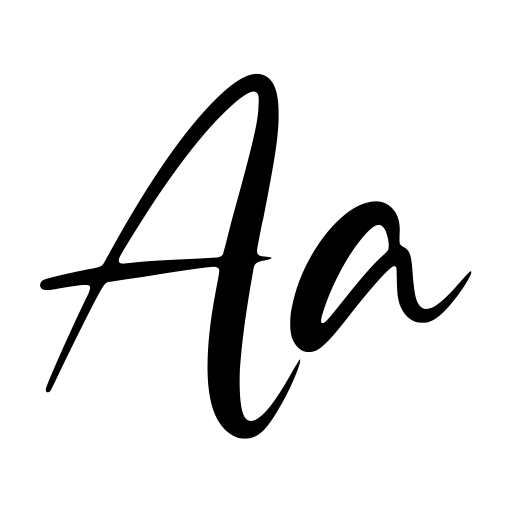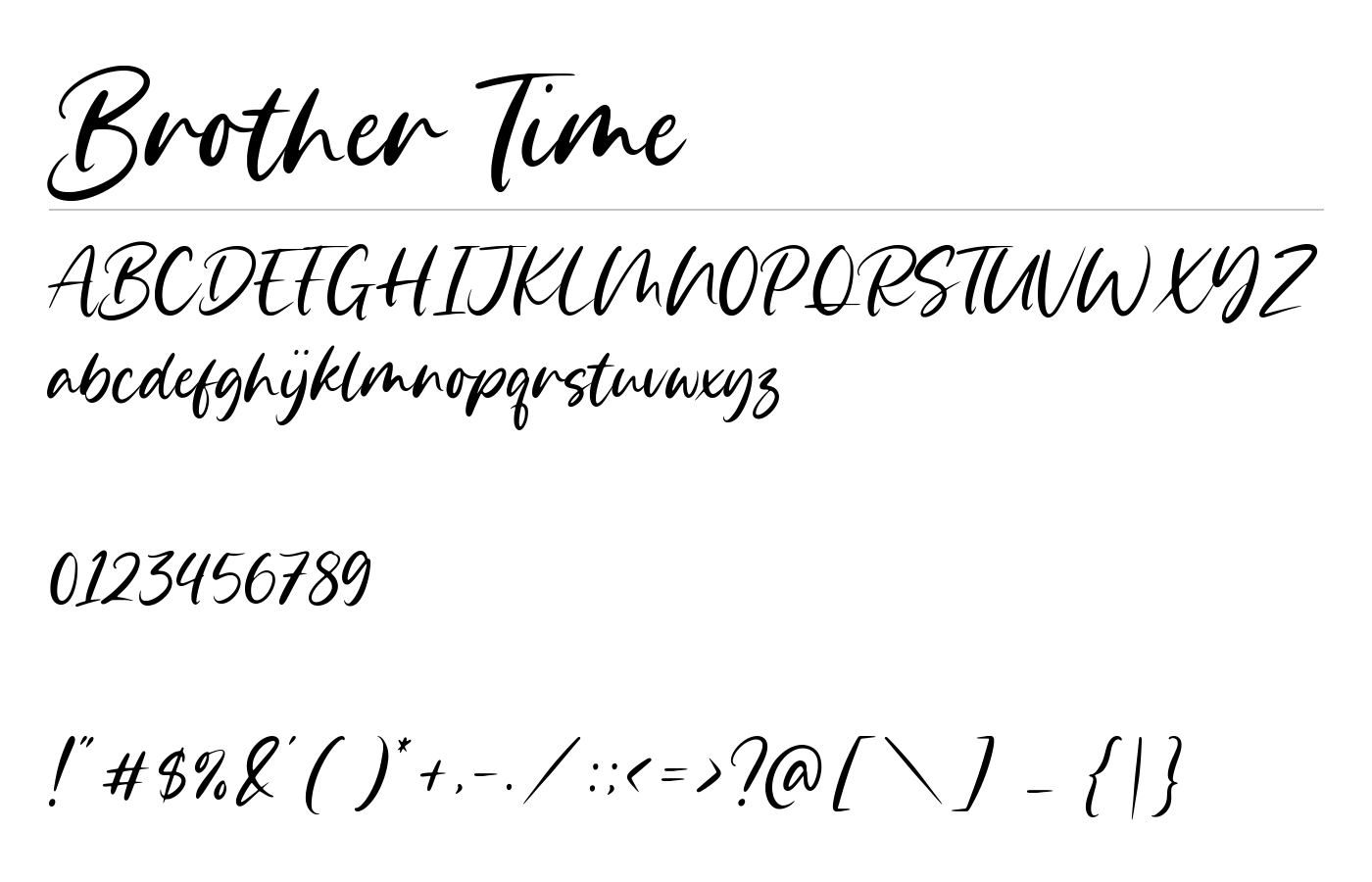
Brother Time is a lively, modern script font with a handwritten, casual feel that blends elegance with approachability. Its smooth, flowing strokes and moderate contrast make it ideal for creative branding, invitations, and stylish headlines where a personal, friendly touch is desired. This font works well in projects that seek to combine sophistication with warmth, such as fashion, lifestyle, and boutique designs.
Brother Time Font
About Brother Time Font